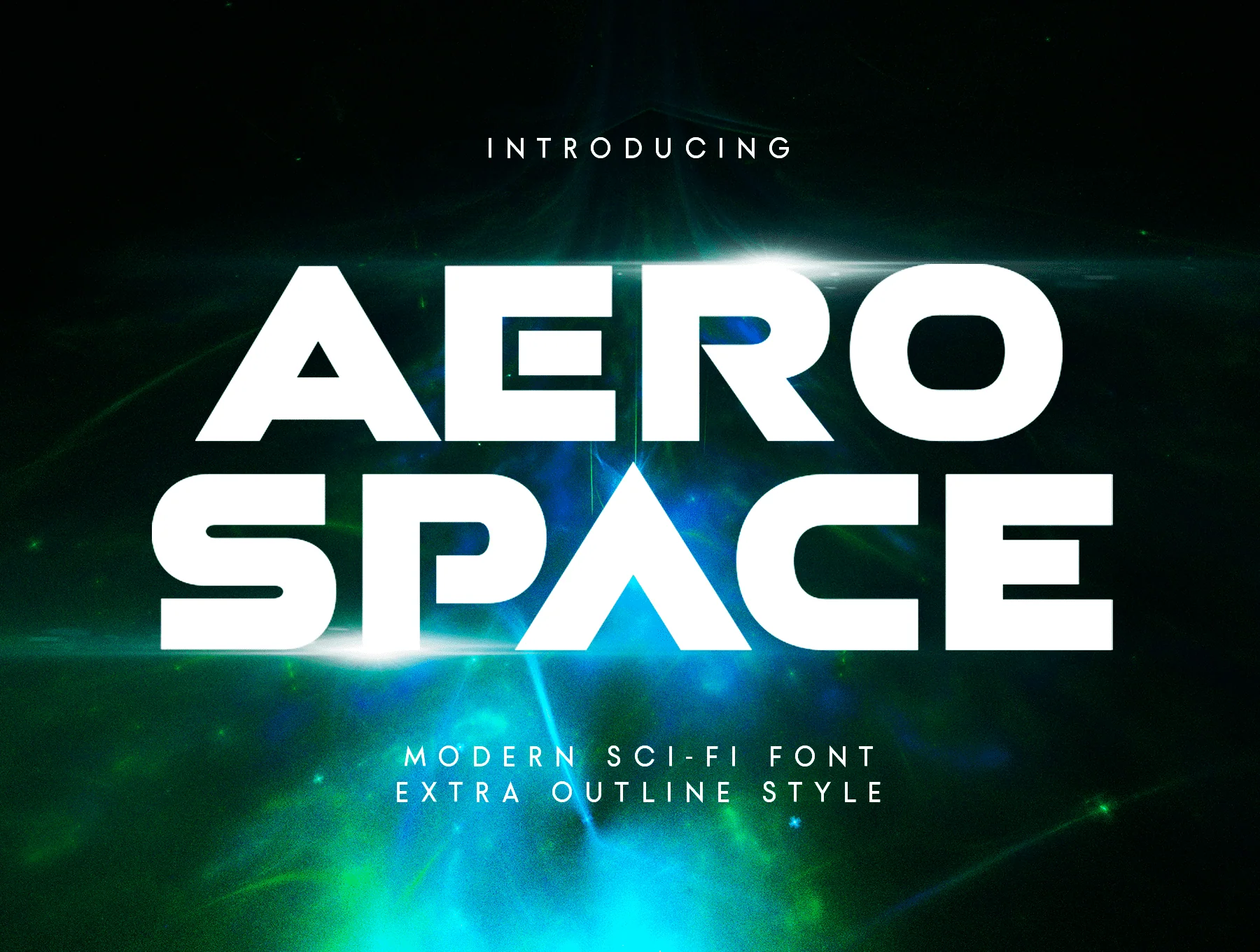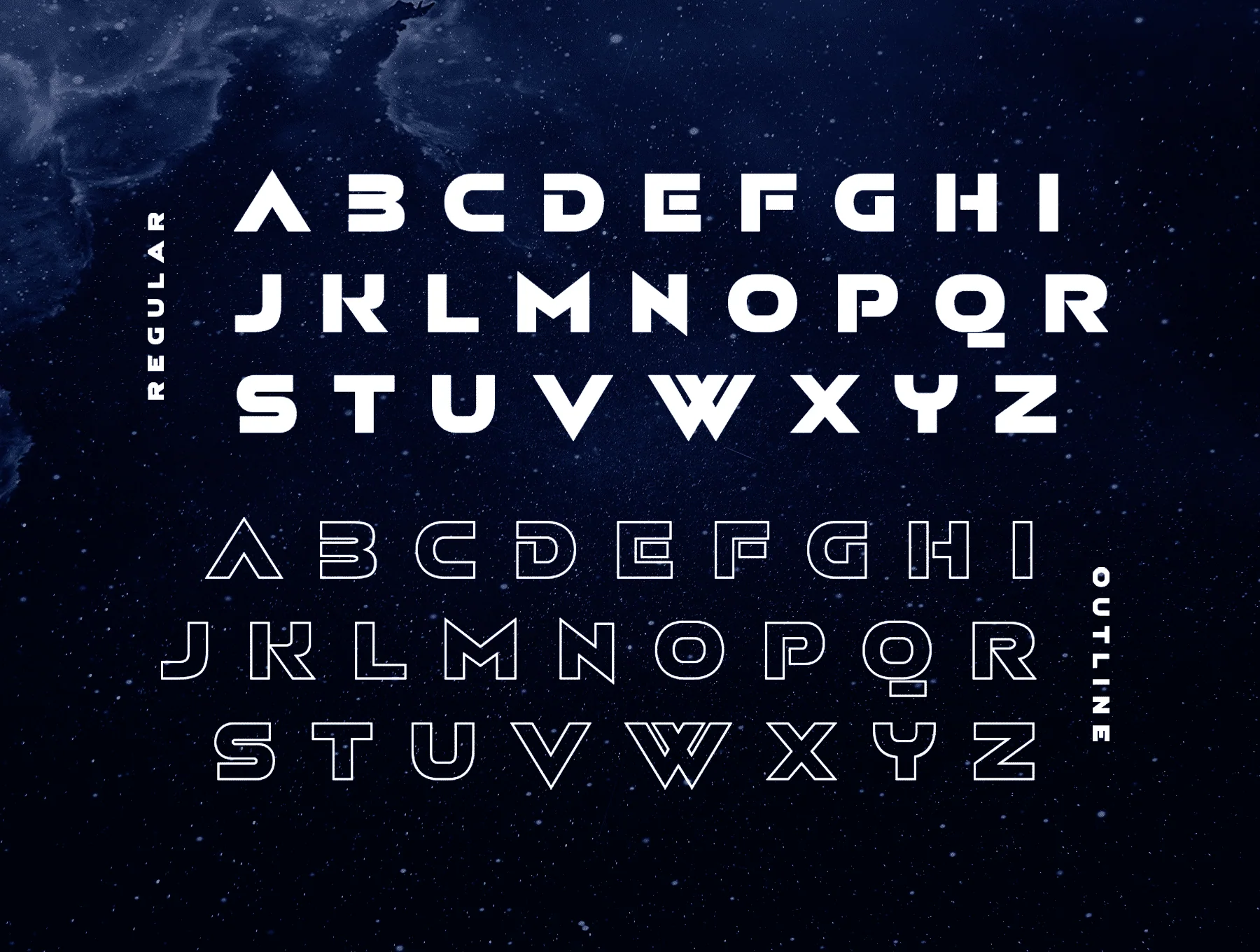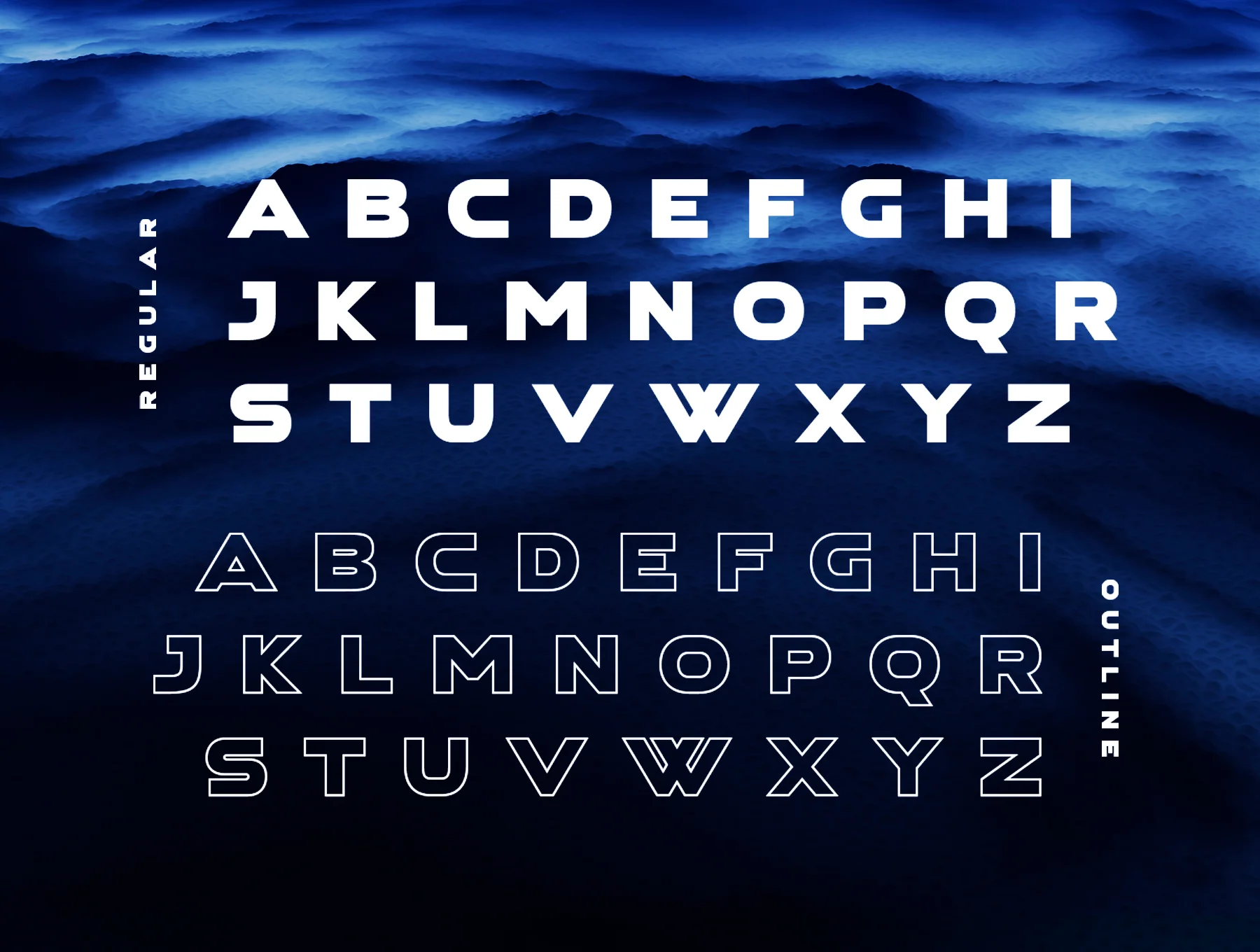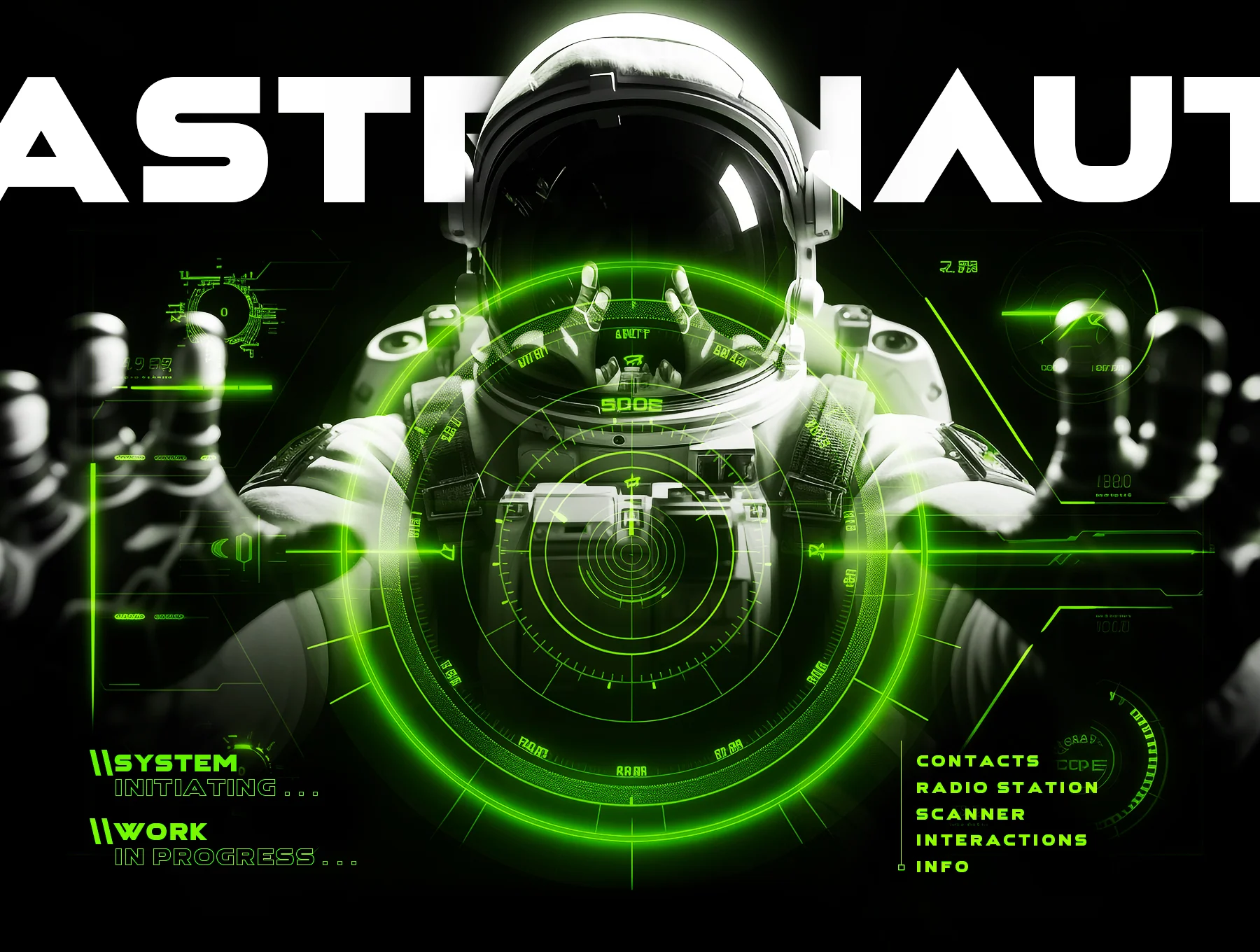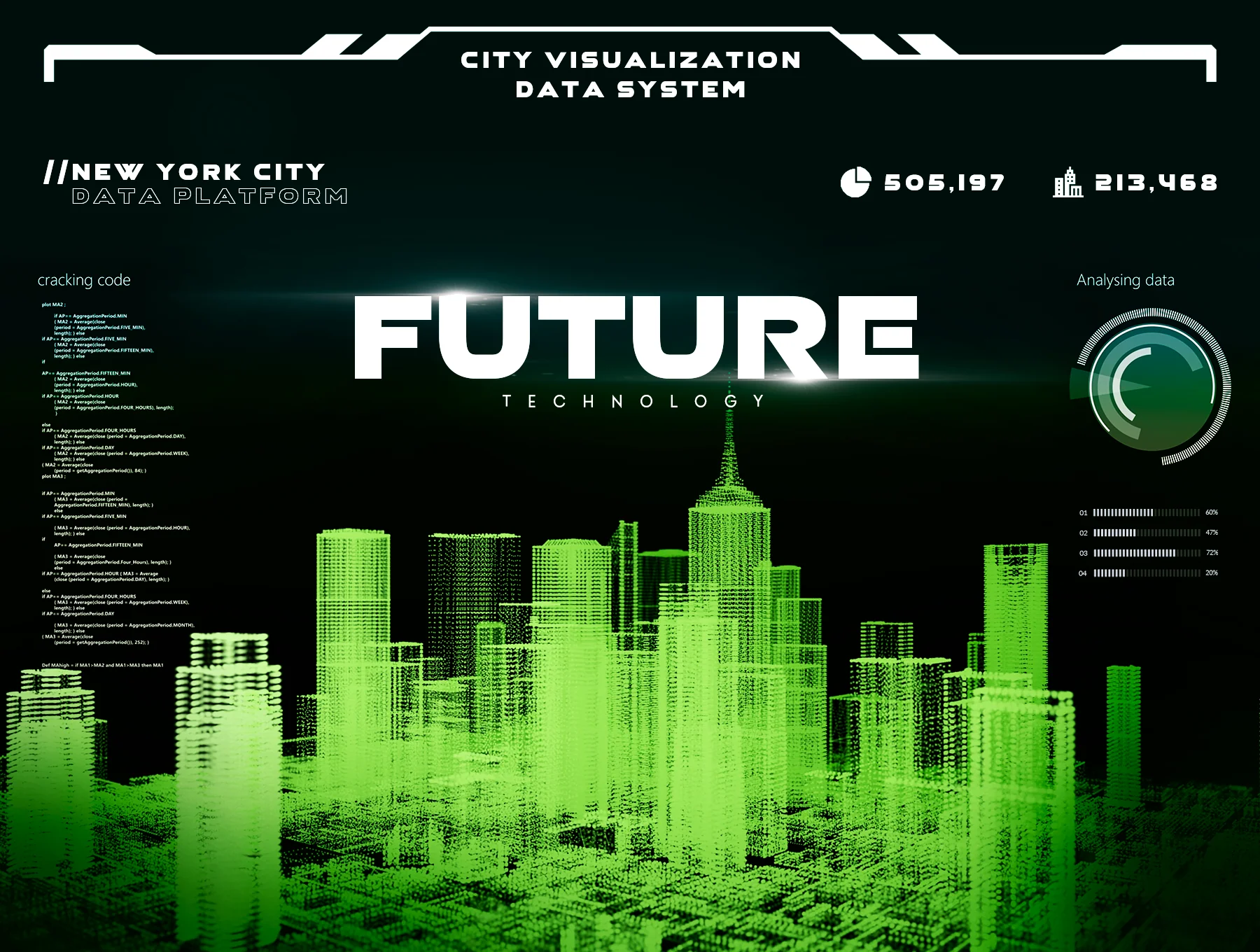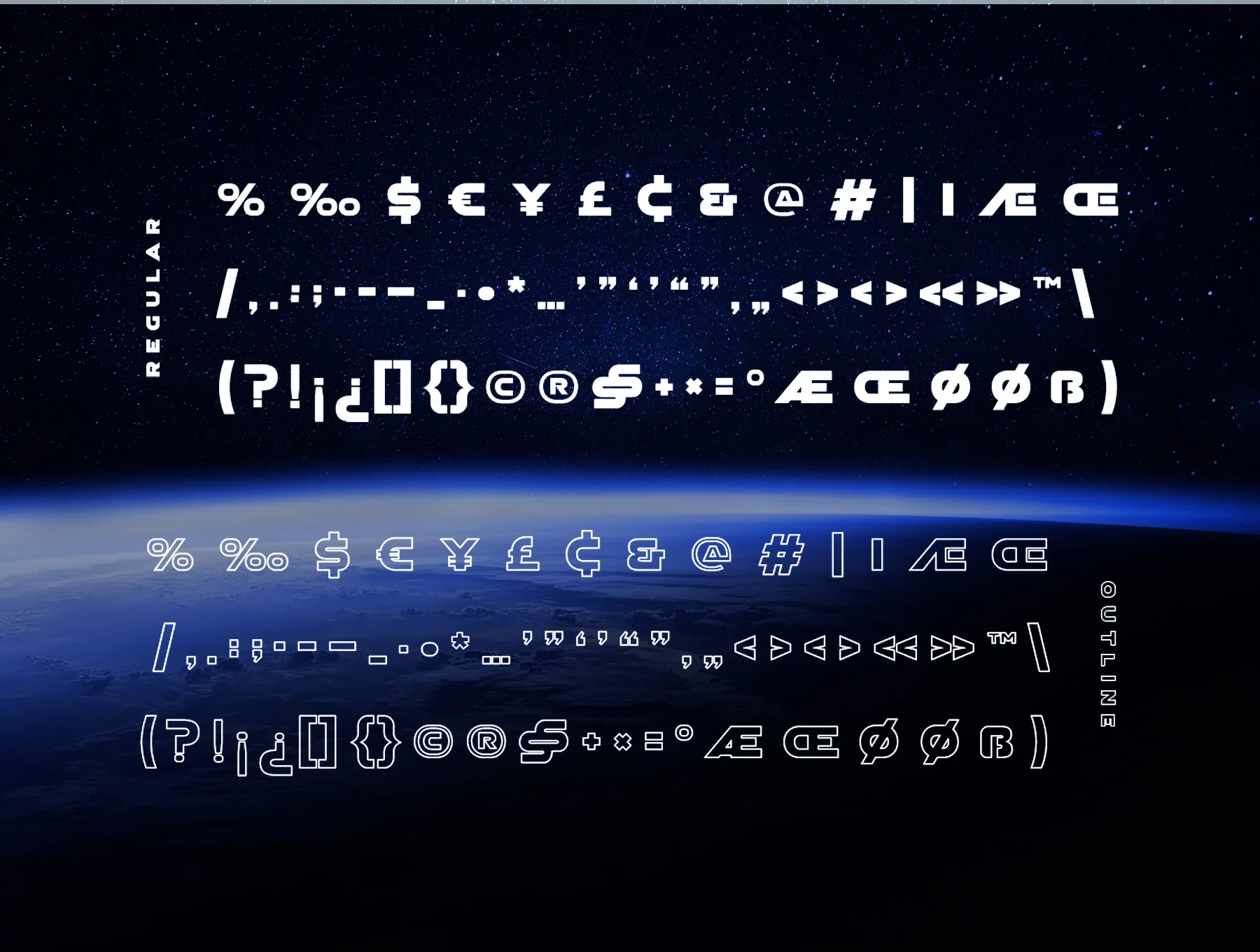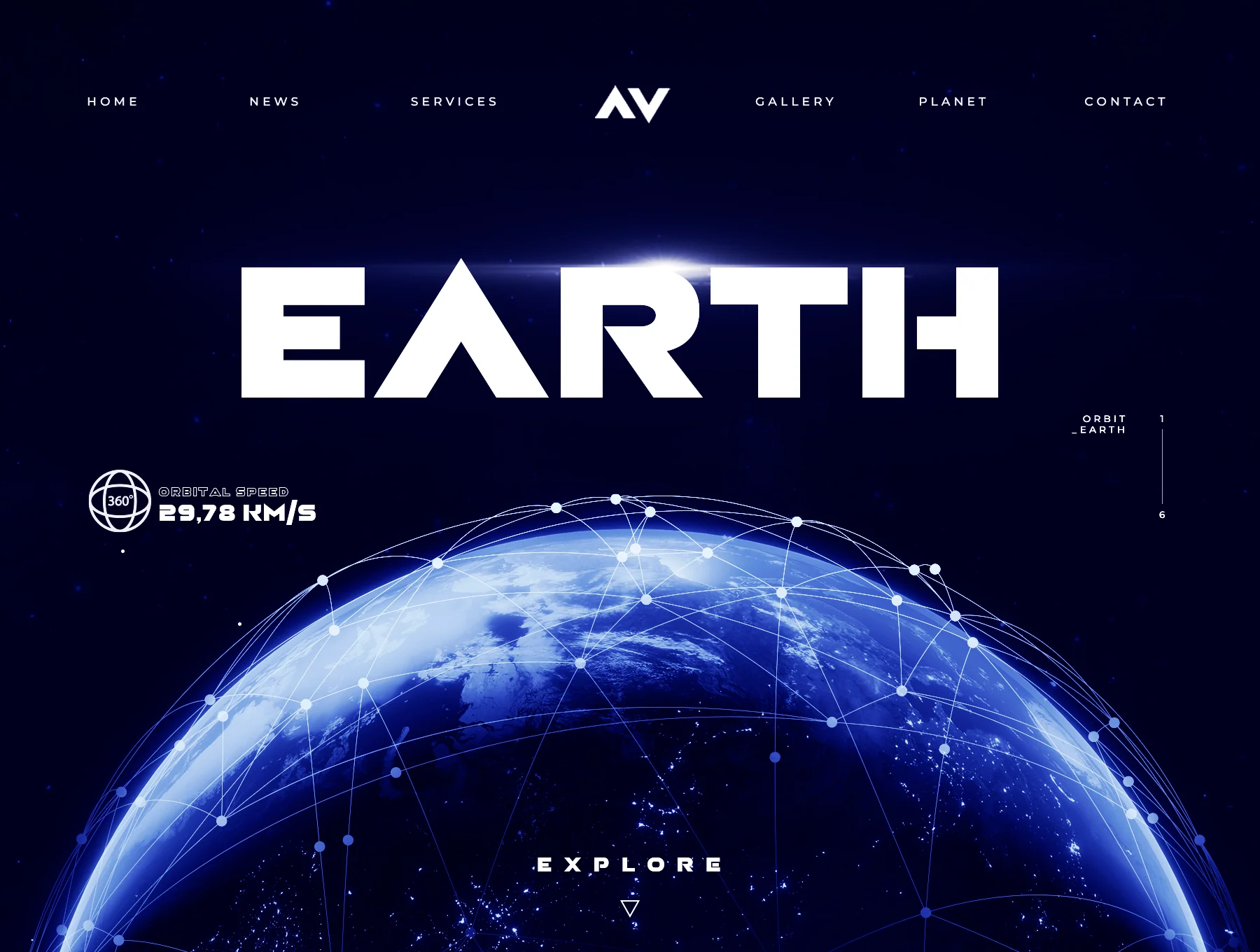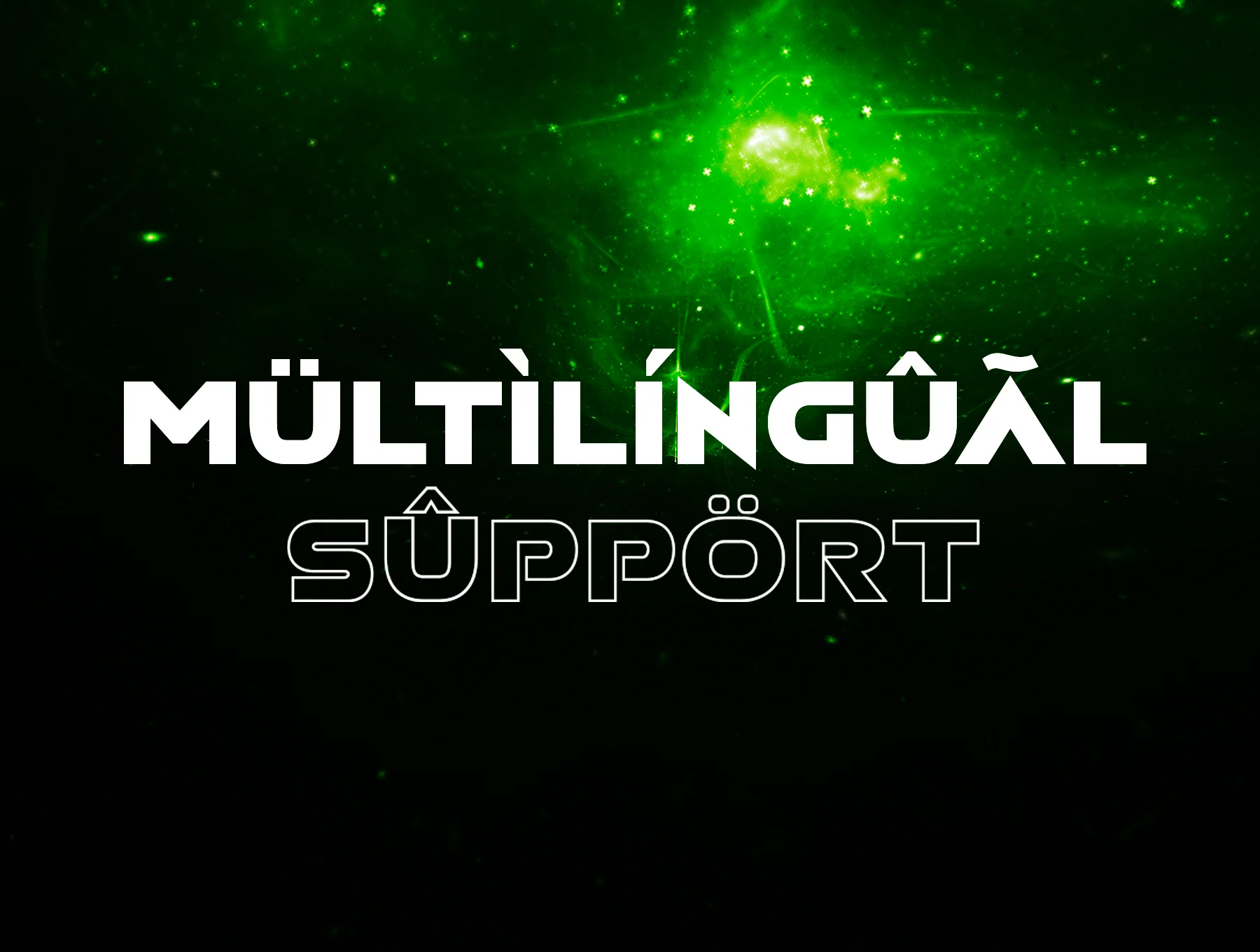
Aerospace Font
Aerospace - Contemporary Futuristic Font
Numbers and punctuation marks
Complete Aerospace typeface in Regular and Outline styles
Full uppercase character set
Aerospace is a contemporary sci-fi typeface made for technology, futuristic, and standout display typography. Extra alternate styles help your designs feel distinctive and memorable. Ideal for headlines, action themes, future concepts, and modern tech projects, it delivers a bold, dynamic look that brings your main idea forward.